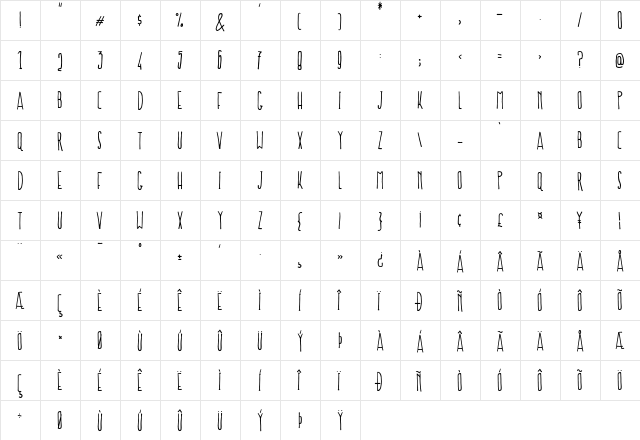
Prokopis Regular
| Designer | Konstantina Louka |
Design Context for Prokopis Typeface
Prokopis offers clean, dependable letterforms without strong stylistic allegiance, making it a practical choice for designers who need flexibility.